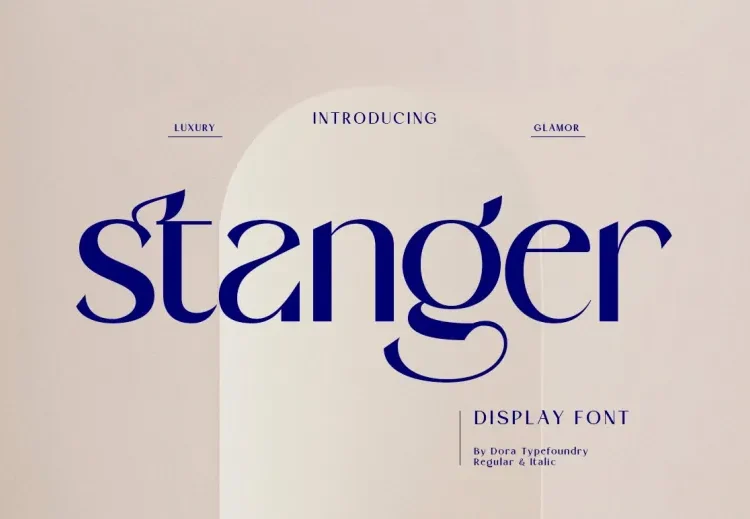
Stanger Font
Stanger is a minimalist display font that merges elegant visuals with soft curves and beautiful ligatures, resulting in a font that’s both visually pleasing and highly adaptable. Its design combines simplicity with sophistication, making it suitable for various creative projects. Whether used in headlines, logos, branding projects, or packaging designs like homeware products, mugs, and posters, Stanger delivers a polished and modern aesthetic.
This versatile font offers both small and large sizes, making it ideal for a wide range of applications. Additionally, Stanger features a cursive style with numerous options and binders, allowing for creative expression and the ability to customize your designs. The font’s diversity and adaptability enable designers to experiment with different combinations, making their work even more striking and attractive.